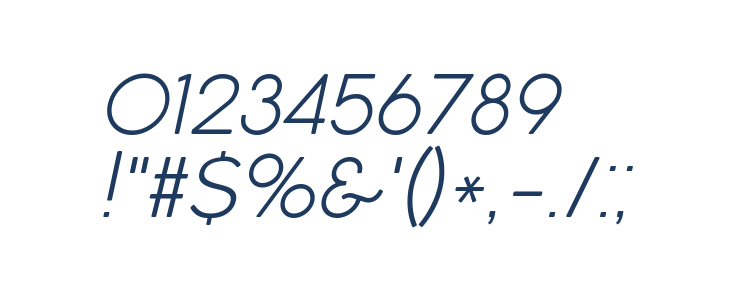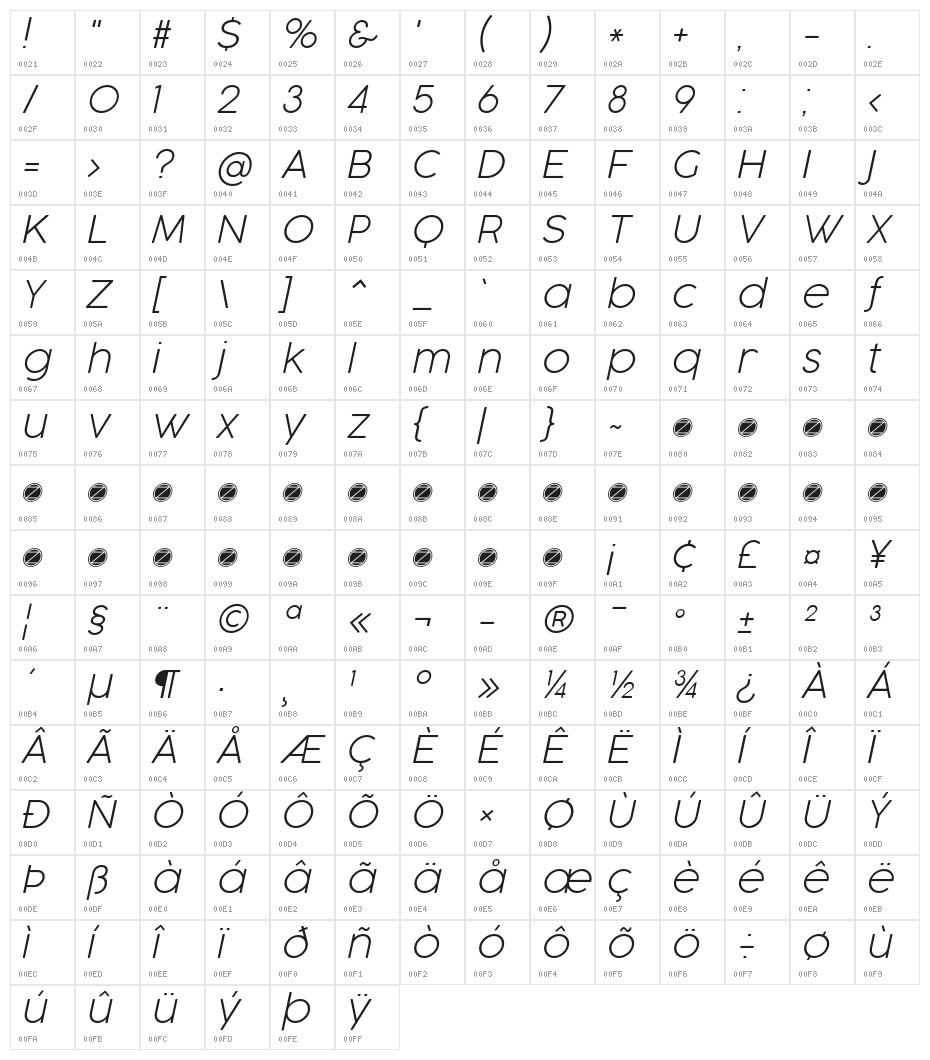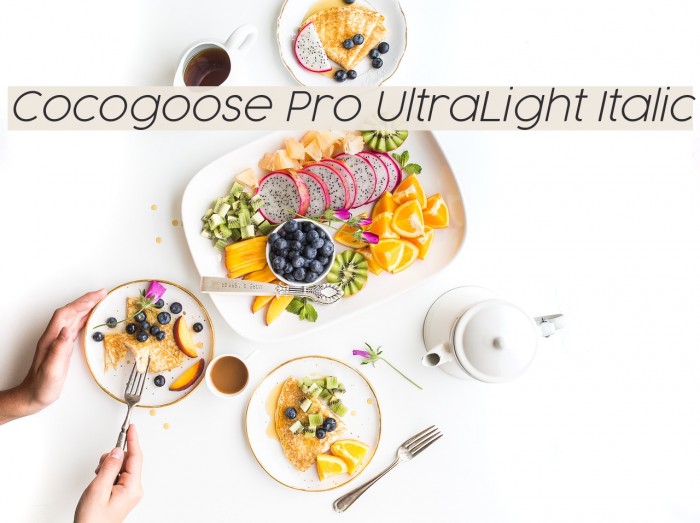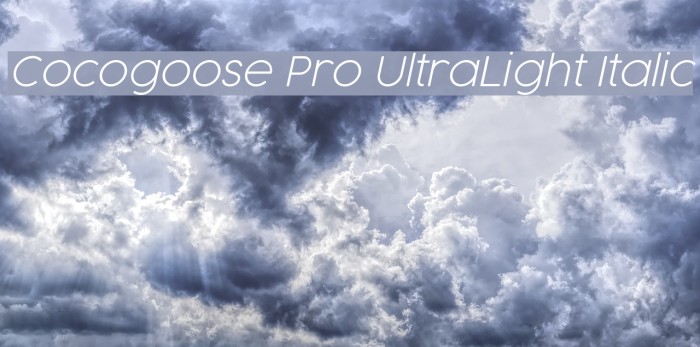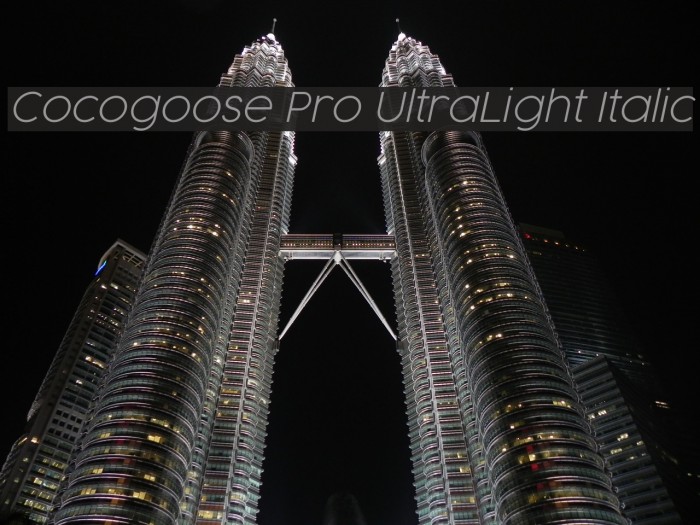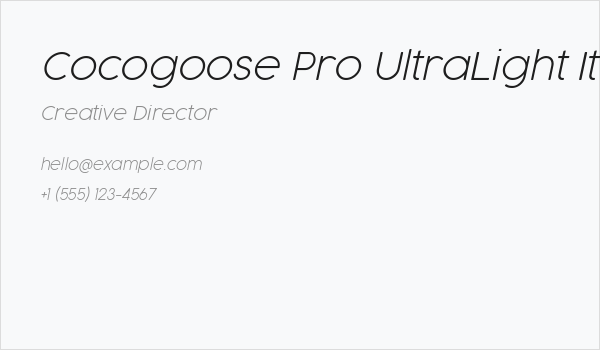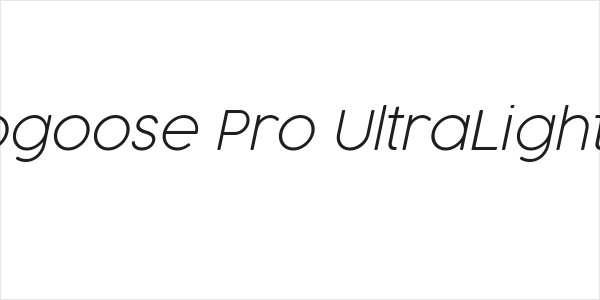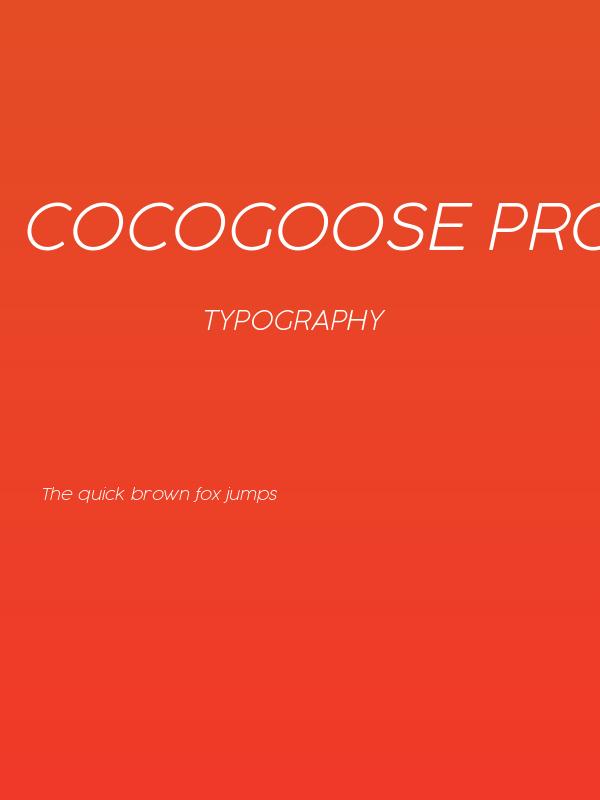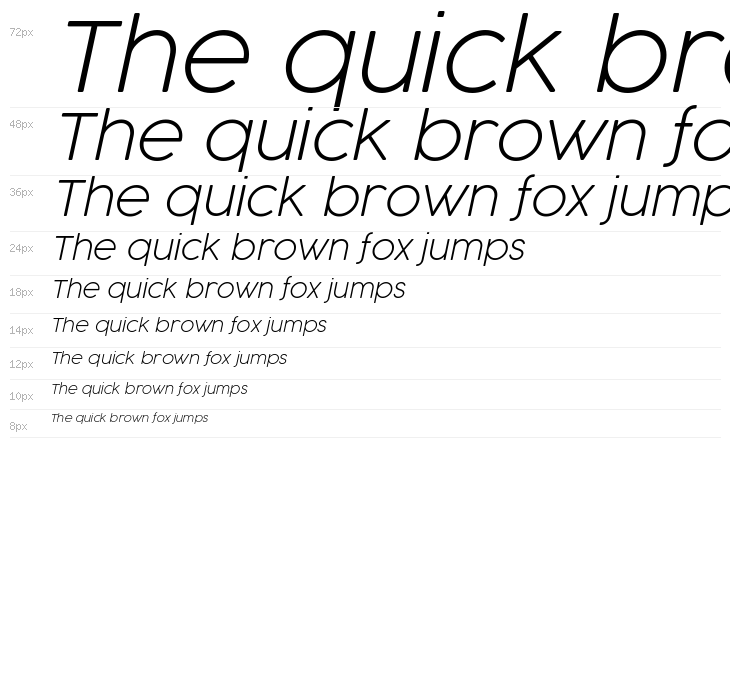
Cocogoose Pro UltraLight Italic Font
Cocogoose Pro UltraLight Italic Description
This font features a sleek and modern design with ultra-light strokes, giving it an airy and elegant appearance. The italic style adds a dynamic and sophisticated touch, making it suitable for contemporary design projects. The characters are well-proportioned with a slight slant, enhancing readability while maintaining a stylish look. The font includes a full set of uppercase and lowercase letters, numerals, and a variety of special characters, making it versatile for various applications. Its clean lines and minimalistic approach make it ideal for projects that require a modern and professional aesthetic.
| Proposed Projects | Ideal for branding, editorial design, fashion magazines, and modern web design. |